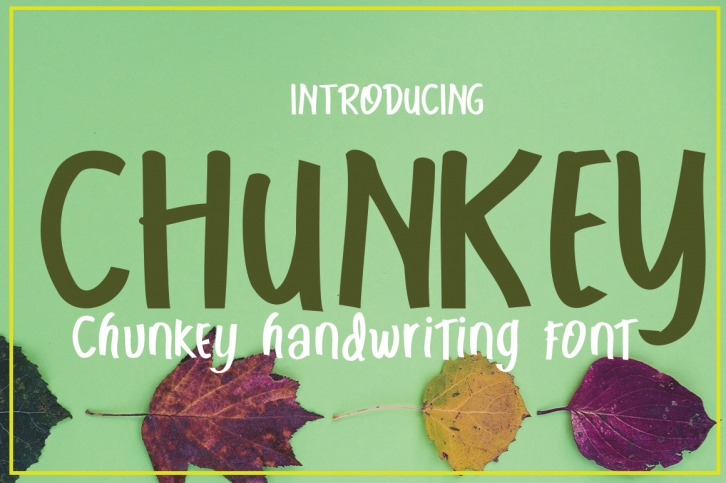
CHUNKY is a gorgeous font that was realeased on December 28, 2019. The font can be used in many style contexts and design environments. Perfect for invitations, magazines, websites, logos, and more! It was designed by HD font studios and the file size is 10.97 MB. Thanks for checking out this font!